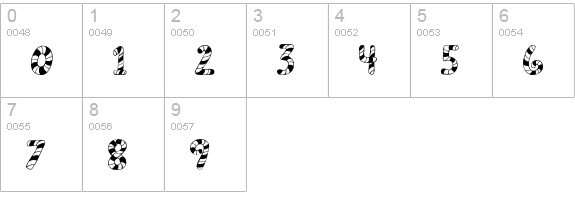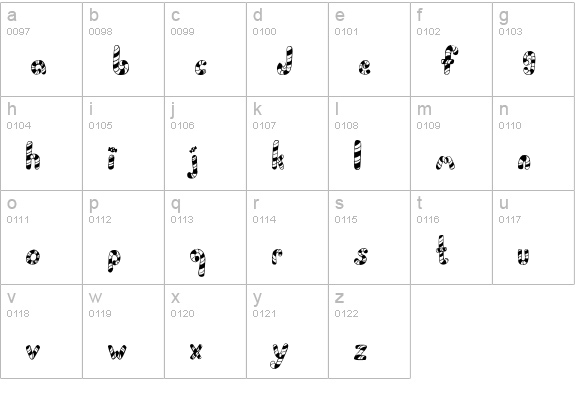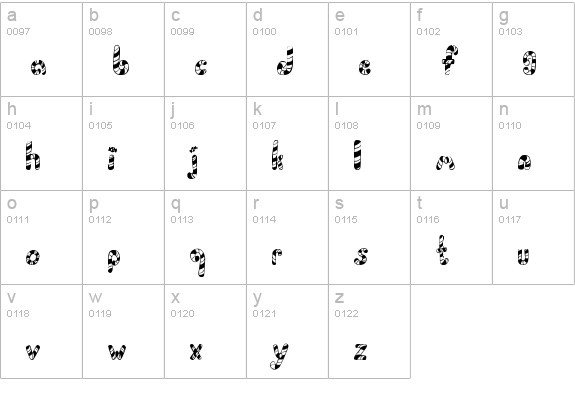
Peppermint Canes Font Details
Peppermint Canes font is a delightful and whimsical typeface that will add a touch of sweetness to any design project. This font is inspired by the iconic peppermint candy canes that are synonymous with the holiday season. The curved and swirling letterforms resemble the familiar stripes of a candy cane, creating a playful and festive look. The Peppermint Canes font is perfect for creating eye-catching headlines, invitations, greeting cards, and more. Its unique and charming design is sure to capture the attention of viewers and bring a sense of joy and cheer to your designs. One of the best things about the Peppermint Canes font is that it is free to download. You can easily access this font at FontsMarket.com, where it is available for free download. Whether you are a professional designer or a hobbyist, this font is readily accessible and can be used in both personal and commercial projects without any restrictions. With its free availability and versatility, the Peppermint Canes font is a must-have for anyone looking to add a touch of holiday spirit and whimsy to their designs. Download it today and let your creativity take flight with this delightful typeface.